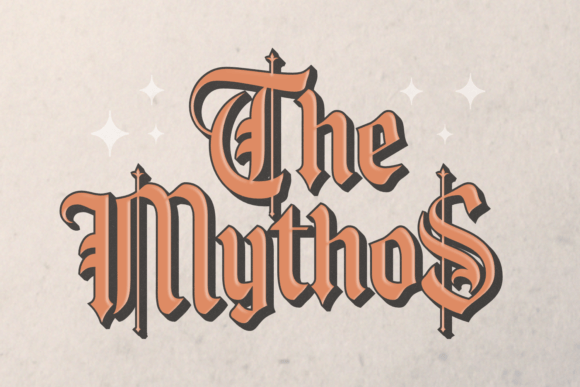
Medieval Barbarian: A Font of Timeless Power
Fonts are more than just a way to display text—they are the soul of visual communication. When you're designing for impact, clarity is only half the battle; the right font can elevate your message from simple words to an evocative experience. Enter Medieval Barbarian, a blackletter font that channels the raw energy and historical allure of medieval craftsmanship. With intricate, Gothic-inspired letterforms and a bold presence, it transports your designs into a realm of timeless sophistication. Whether you're creating a brand identity, designing marketing materials, or crafting content with a distinct aesthetic, this font offers unique value in ways few others can.
Why Medieval Fonts Still Matter Today
Blackletter fonts have long been associated with tradition, authority, and mystique. They echo the calligraphy of monks who penned illuminated manuscripts by candlelight, each stroke carrying the weight of history. While many modern designers lean toward sleek sans-serif fonts for their readability and clean look, there’s a growing appreciation for fonts like Medieval Barbarian that evoke a sense of nostalgia and gravitas. These fonts are particularly effective when used in contexts where authenticity and character are key—such as branding for heritage products, fantasy-themed projects, or any design aiming to stand out in a sea of sameness.
Creating Authenticity in Branding
For small business owners and entrepreneurs in niche markets, building a strong brand often means differentiating yourself through storytelling and visual identity. Medieval Barbarian can help achieve this by adding a layer of authenticity and timelessness to logos, packaging, and promotional materials. Imagine launching a new line of handcrafted ale or artisanal leather goods with a logo that speaks volumes about tradition and quality. The font's ornate details and commanding structure make it ideal for conveying a sense of heritage and craftsmanship.
Use case example: A local brewery named "The Iron Tankard" used Medieval Barbarian for its logo and label design. The result was an immediate connection with customers seeking something real, something rooted in old-world charm. This attention to detail helped them carve out a unique identity in a crowded market and increased customer engagement significantly.
Enhancing Visual Storytelling in Design Projects
Designers working on fantasy-themed games, books, or digital experiences know the importance of setting the tone visually. Medieval Barbarian provides a powerful tool for reinforcing thematic elements without needing elaborate illustrations. Its Gothic roots and robust characters naturally lend themselves to medieval, dark fantasy, or steampunk aesthetics. The font doesn’t just add text—it adds mood.
Realistic application: A game developer designing a medieval quest-based app found that using Medieval Barbarian for title screens and key UI elements immediately immersed players in the intended world. It saved time on custom artwork while still delivering a high-impact visual style that resonated with the target audience.
Practical Benefits of Using Medieval Barbarian
While Medieval Barbarian may seem like a font reserved for special occasions, its practical applications are vast. Here's how it can benefit professionals across creative fields:
Who Can Benefit Most?
Although Medieval Barbarian has broad appeal, certain professionals will find it particularly valuable:
1. Graphic designers: Especially those working in entertainment, publishing, or lifestyle niches where character-driven typography is crucial.
2. Content creators: Bloggers, YouTubers, or social media managers looking to create themed content or build a distinctive personal brand.
3. Entrepreneurs: Those selling vintage-style products, medieval-themed merchandise, or anything that benefits from a strong visual narrative.
4. Marketers: Campaigns targeting older demographics or those interested in history, fantasy, and authenticity can leverage this font to enhance emotional resonance.
One educator I spoke with recently used Medieval Barbarian to design a course titled “Gothic Literature Through the Ages.” Students responded positively, noting that the font helped set the tone and expectations for the class before they even read the syllabus. That kind of subconscious influence is what makes thoughtful typography so impactful.
How to Use Medieval Barbarian Effectively
Like any specialized font, Medieval Barbarian works best when used with intention. Here are some tips to maximize its effectiveness:
Freelancers in particular can streamline their workflow by having Medieval Barbarian in their toolkit. Instead of sourcing custom lettering or spending hours adjusting typefaces, they can instantly apply a font that already embodies the desired effect. This saves time and maintains a professional standard without sacrificing creativity.
When to Avoid Medieval Barbarian
Though versatile, Medieval Barbarian isn’t universally suitable. It thrives in specific environments but may fall flat in others. For instance: